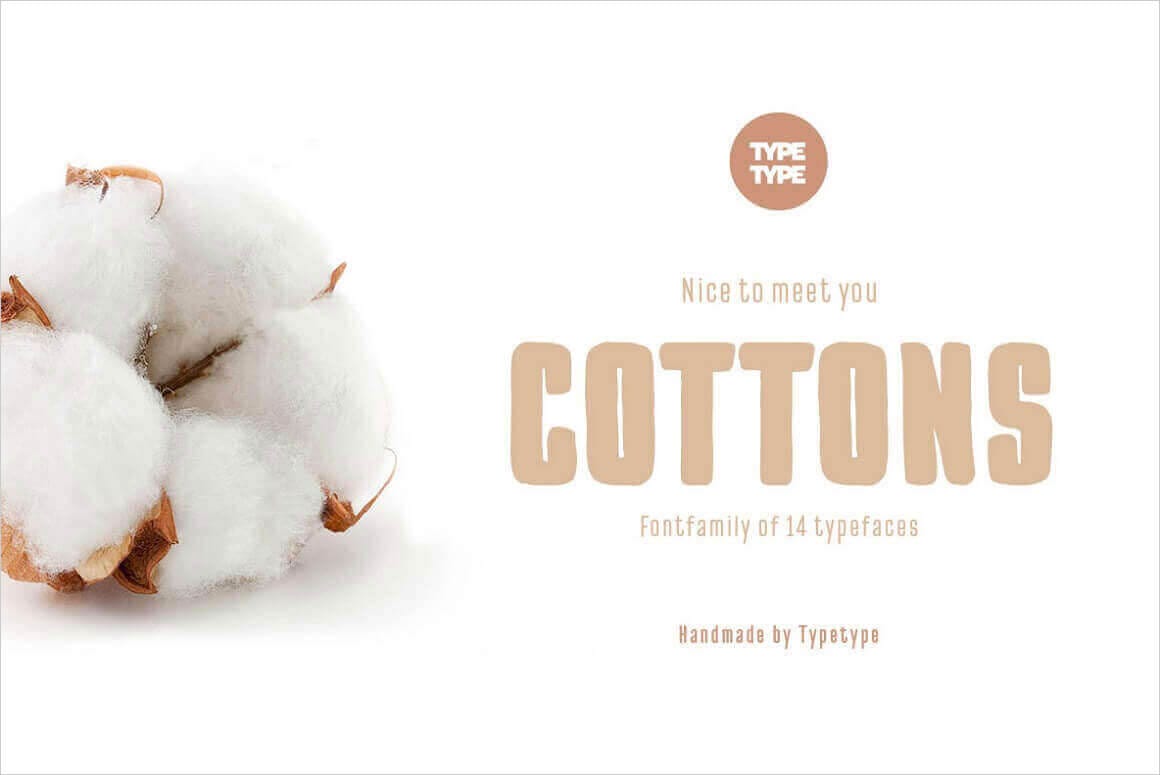
Talk about your cozy deals! This Mighty Deal from TypeType features TT Cottons, a font family that’s sure to give you the warm and fuzzies. Add a touch of spring and hand-made style to your latest project with this set of 14 different fonts that features 7 weights, 410 glyphs and multilingual support for 70+ languages.
• Give your projects a real cozy, warm and homey feeling with TT Cottons.
• This fabulous Font Family includes 14 different typefaces.
• Both Regular and Italics styles are each provided in 7 different weights: Thin, Extra Light, Light, Regular, Medium, Bold and Black.
• Every single typeface was created by hand with a real instrument from a brush to a rapidograph.
• With the wide variety of weights, you can fit large amounts of text in a small area or plaster a few words in a big way.